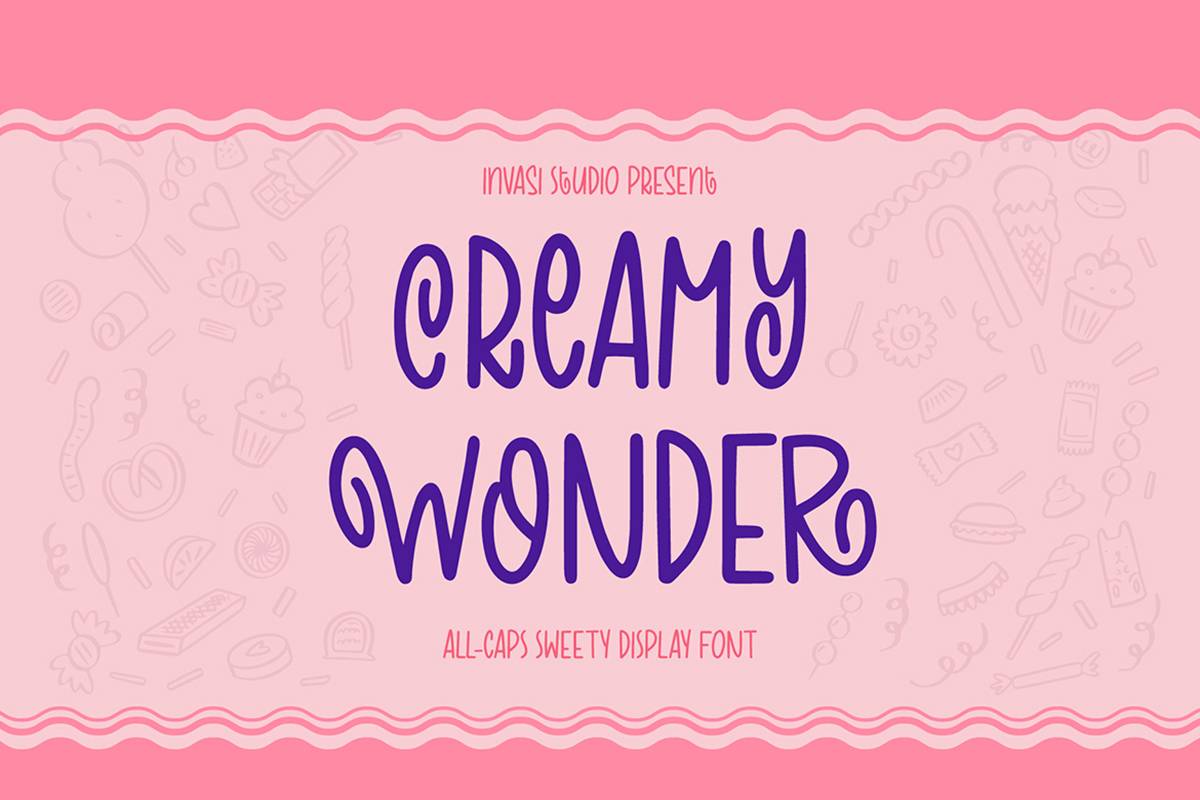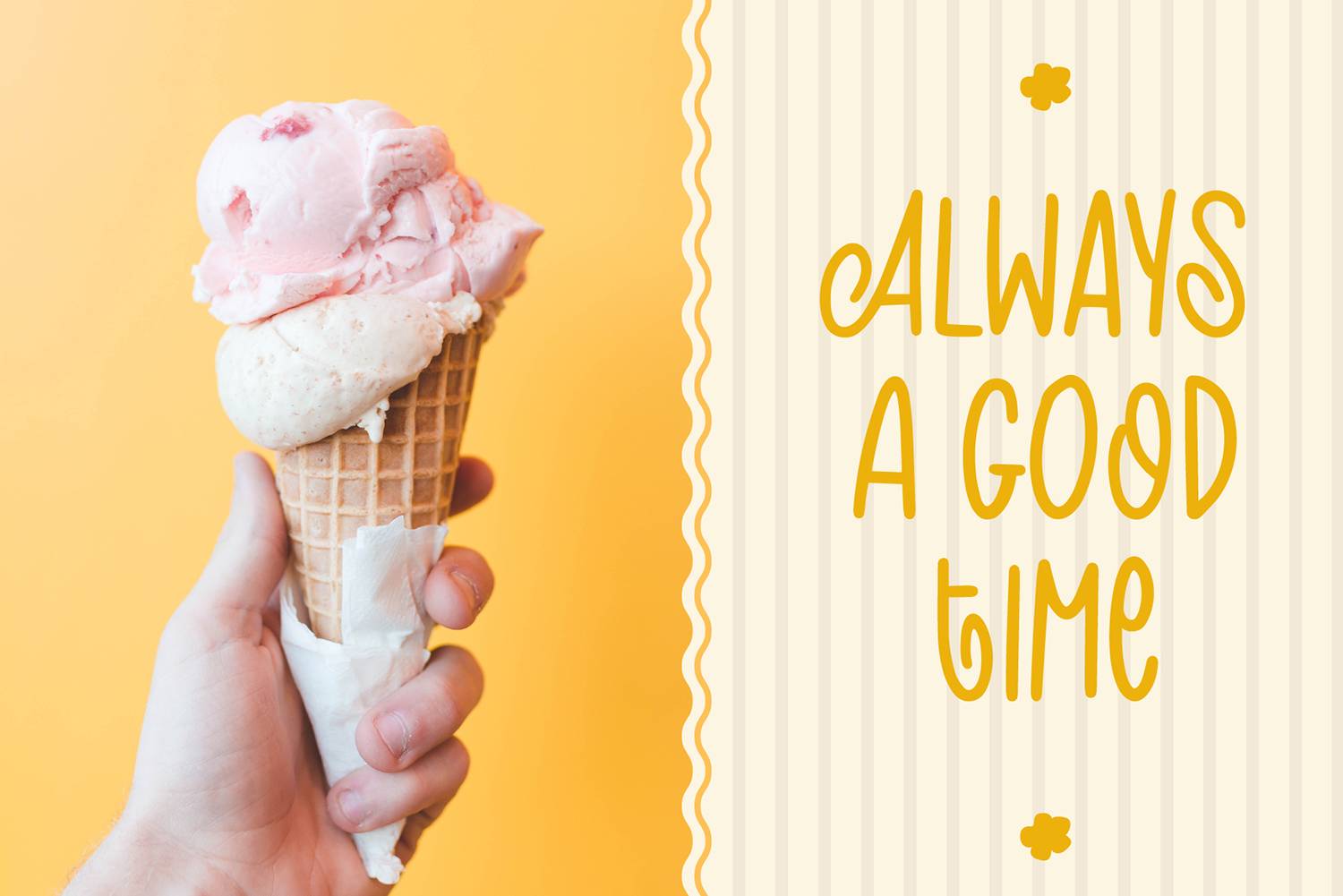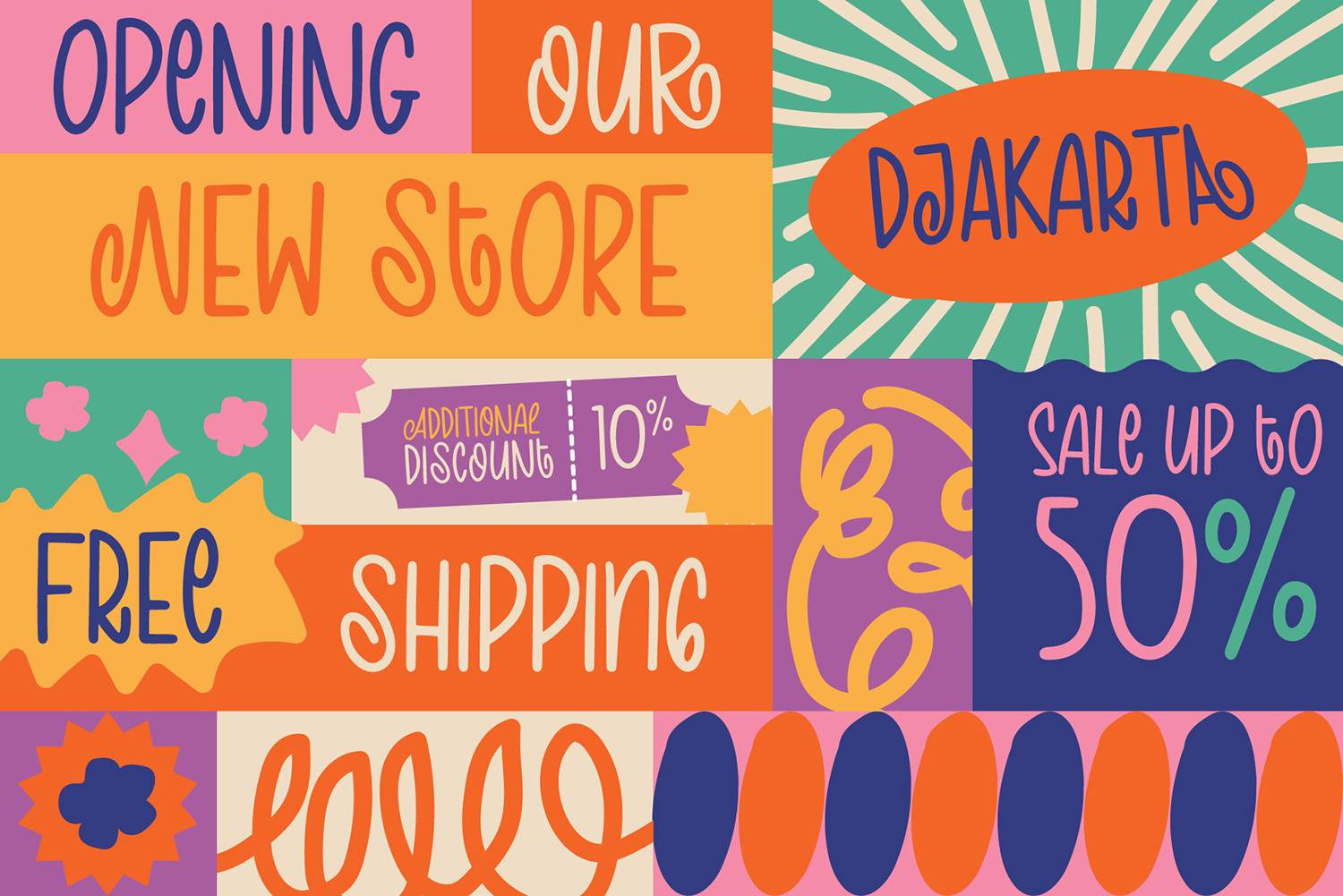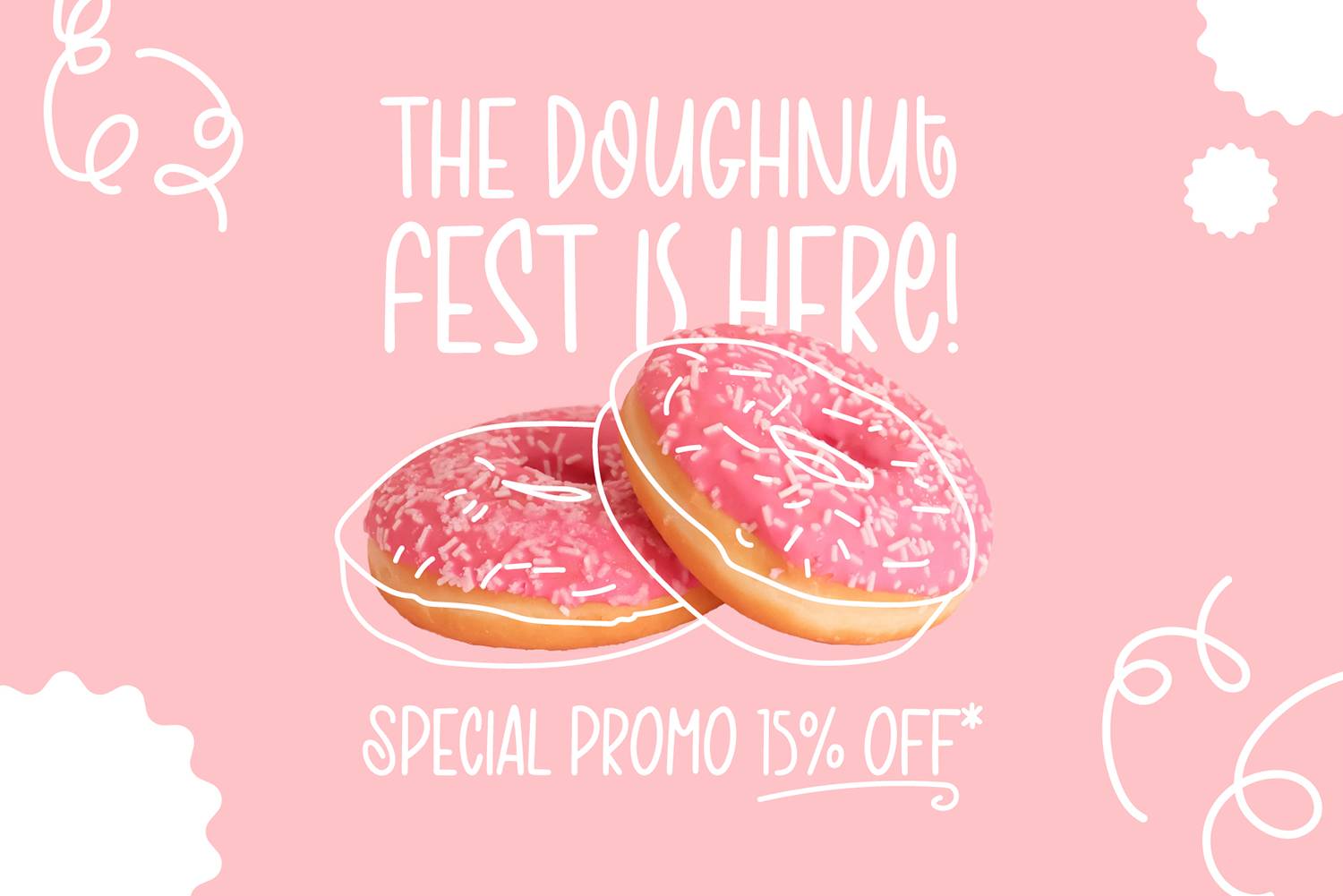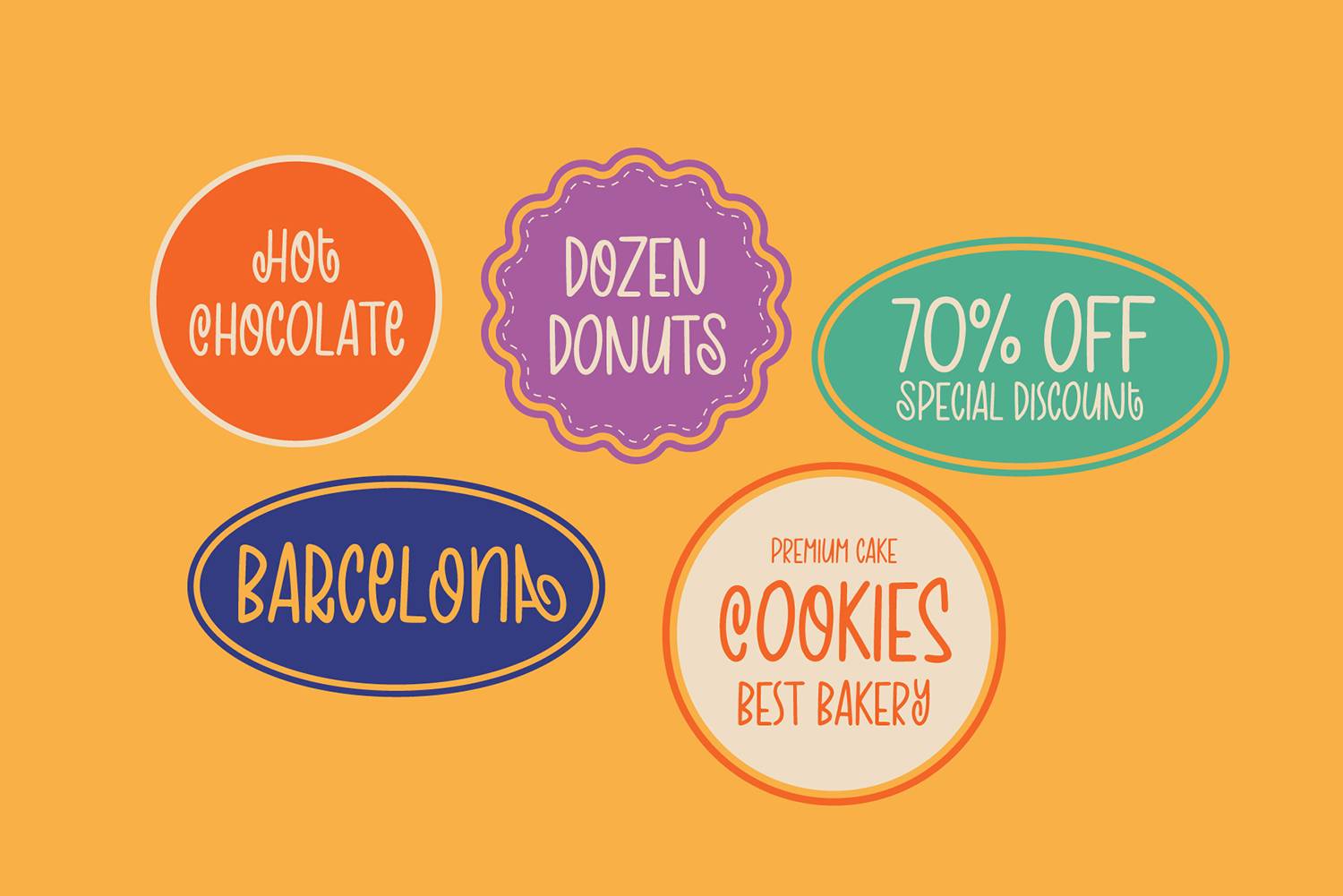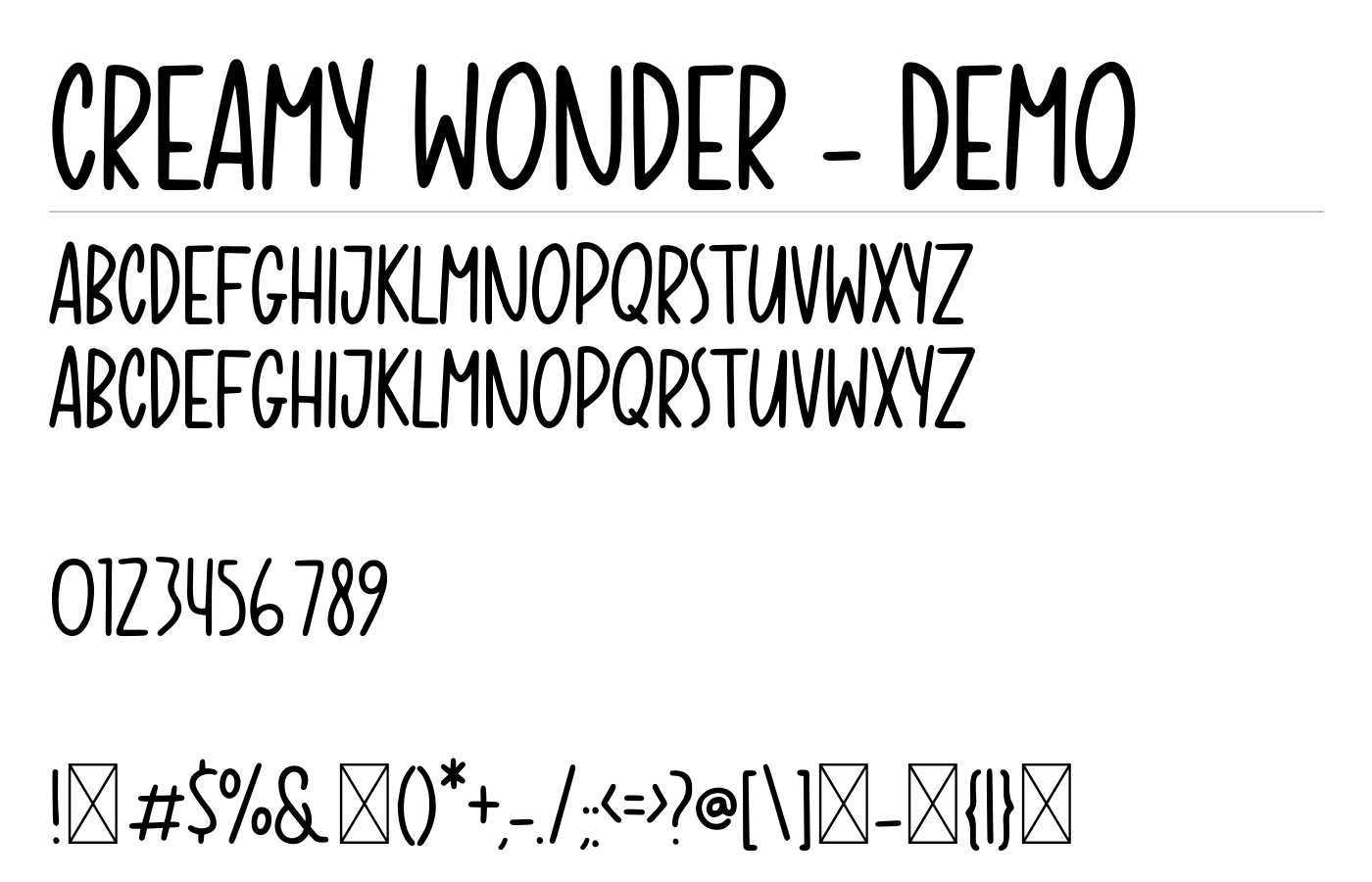
Creamy Wonder is a playful, hand-drawn sans serif font with tall, narrow letterforms and a casual, friendly vibe. Its light weight and organic stroke variations make it perfect for informal, creative designs like greeting cards, children's books, or fun branding projects that want to convey warmth and approachability. This font works well in headlines and display text, where its quirky personality can really shine.
Creamy Wonder Font
About Creamy Wonder Font
| Font family | Creamy Wonder Font |
| Designer | Gha Arizal |